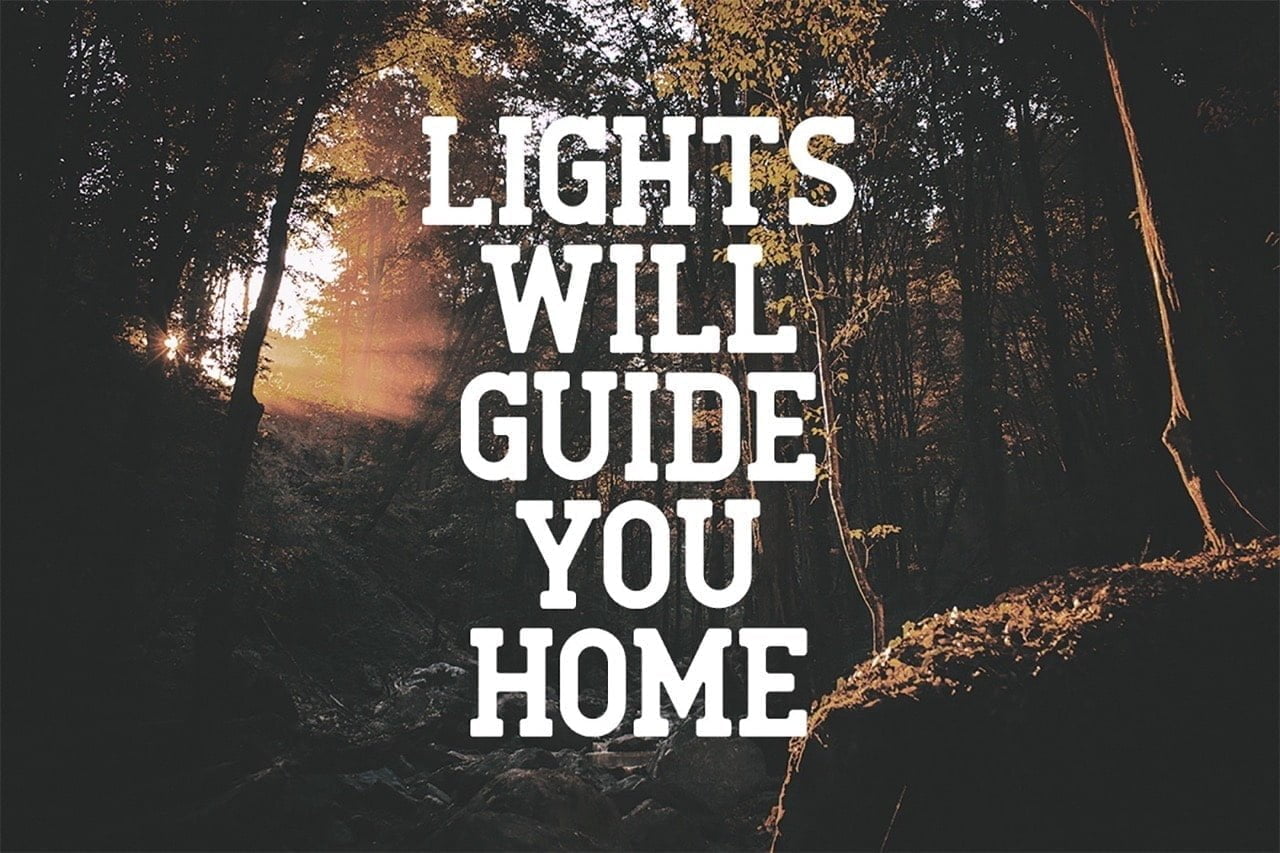
Roger serif font is designed to emulate vintage design, with a clean, simple and friendly aura. The main goal was to create something that could work well in casual or formal situations.
Roger Serif